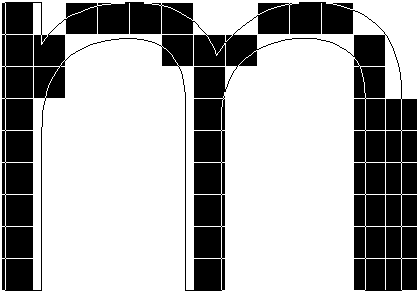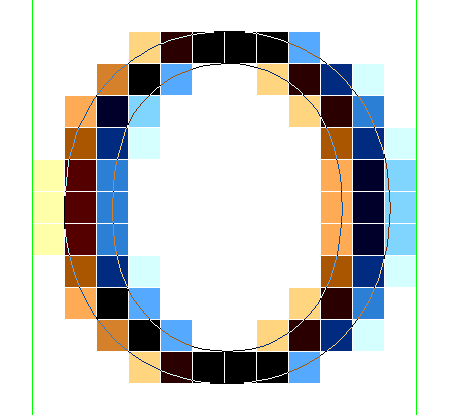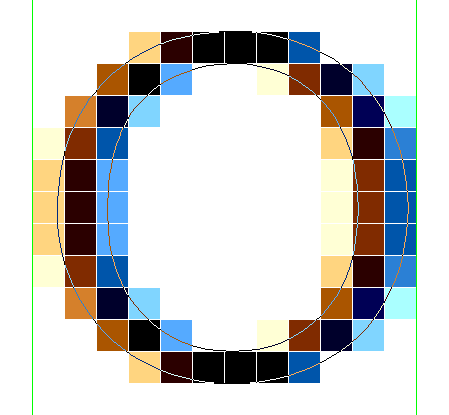
Beat Stamm has published an updated and greatly expanded version of his important 1997 article ‘The Raster Tragedy at Low-Resolutions’, which explained the reasons why hinting was needed, as a corrective to raster rounding problems in coarse grids. The original article, excerpted from a presentation that Beat gave at the 1997 OpenType Jamboree and still available on the Microsoft Typography website, dealt with the then predominant b/w rendering of text type sizes. The new version of the article ‘covers anti-aliasing including sub-pixel rendering, opportunities made possible by anti-aliasing, challenges in the rasterizer and elsewhere, and a discussion of "hinting" in the context of these opportunities and challenges.’
This is a truly amazing document. Great to see Beat participating again and I look forward to the many comments and discussions I hope this revisit provokes.
I'm about halfway through a close reading of the document, looking with particular care now at the section on subpixel spacing (§3.3.2), which with yesterday's relatively quiet release of IE9 has suddenly ceased to be a pending issue. The first thing I noticed when setting up my IE9 homepage to match my Firefox 3.6 page is that the thin verticals of M and N (approx. 14pt Constantia, 96dpi) are becoming pale smudges. As Beat notes:
So far, the fundamental observation is this, from §1.2 (Beat's emphasis):
On why the ancient and obsolete efficiency measures of the Windows TT rasteriser will never be ‘fixed’ to enable greater precision (§4.0.3):
All of Chapter 6 should be required reading, and then required re-reading.
Unfortunately, one of the things it makes clear is that you can't, after all, hint TrueType in FontLab, at least not in accordance with Beat's definition of hinting:
JH>...at least not in accordance with Beat's definition of hinting:
Honestly, when I read that and wondered how such an extreme definition could even form.
I think extreme or ideal definitions can be very useful, in that they oblige one to consider how something might or should work or be used, rather than proceeding on the basis of how it has worked or how it has been used. Beat makes a distinction between hinting and 'pixel-popping', and even when one acknowledges a practical continuum between these things in ‘getting the job done’, the distinction remains a useful one. What I take away from Beat's Chapter 6 is that we need to think about TrueType more as a programming language, which will make it possible to move closer on the continuum to Beat's definition of hinting, and away from using this potentially very powerful tool as a ‘technophiliac disguise for “pixel-popping”’.
Hence my comment about FontLab's TrueType hinting capabilities, which pretty much do function as a pixel-popping interface, and which hence have become increasingly less useful as we move away from bi-level rendering. We're now at a place where enthusiastic amateurs are finding that FL (auto)hinting can apparently improve the appearance of some glyphs in some fonts at some sizes in some environments -- heck, maybe even most glyphs in most fonts at most sizes in most environments --, but they're doing so ‘oblivious to the fact that it took the rasterizer a seemingly serendipitous chain of tiny rounding errors to produce this particular result’. In other words, they're hinting from particular outlines to particular results, rather than generalising hinting as a programming strategy that will provide the most flexible set of nested instructions and functions, such that varying raster output devices, rendering methods and user preferences are able to take most advantage of that hinting.
This, of course, presumes another point that Beat makes: hinting is (should be) all about acting, not reacting. If this is the case -- or becomes the case -- then hinting goes from being the cladding on a building that makes it look nice to being something like a foundation, something that new rendering methods and options for end users can reliably build on top of, and without resorting to the kind of ‘band-aids’ Beat was forced to enact in the Windows rasteriser to get existing fonts not to explode in ClearType.
“asking an artist to become enough of a mathematician to understand how to write a font with 60 parameters is too much.”
That's how Donald Knuth explained why Metafont failed to catch on with type designers. And while I realize that an apples-to-apples comparison is not appropriate to Metafont and TT hinting, looking at Beat Stamm's site makes me feel the same way about TT hinting.
>In other words, they're hinting from particular outlines to particular results
Whom?
>“asking an artist to become enough of a mathematician to understand how to write a font with 60 parameters is too much.”
first if all, hinting for contemporary windows environs requires less than 10 parameters, and second, the vast majority of the kind of artists you are citing juggle hundreds of parameters in the design of a font, no problem. Third, if you really believe hints should be more useful than what they are used for, you're a tad late to support it.
> think extreme or ideal definitions can be very useful, in that they oblige one to consider how something might or should work or be used
You mean like hearing someone saying the iPad is the perfect example of how a web device should treat typography? Does that oblige you to think, or just react with standard windows rhetoric?
>FontLab's TrueType hinting capabilities, which pretty much do function as a pixel-popping interface, and which hence have become increasingly less useful as we move away from bi-level rendering
I could repeat the above exercise with any kind of anti-aliasing, with substantially the same results on the abstraction level of samples instead of pixels. But as illustrated in §3.0, the raster tragedies don’t go away, they’re merely less obvious to see.
il papa ;-), is the image you posted supposed to represent some 'pinnacle' of screen font design?
“please do not assume that just because some stopped working on it, all stopped.”
Cool! We seem to be on the same X-page, hintingly speaking.